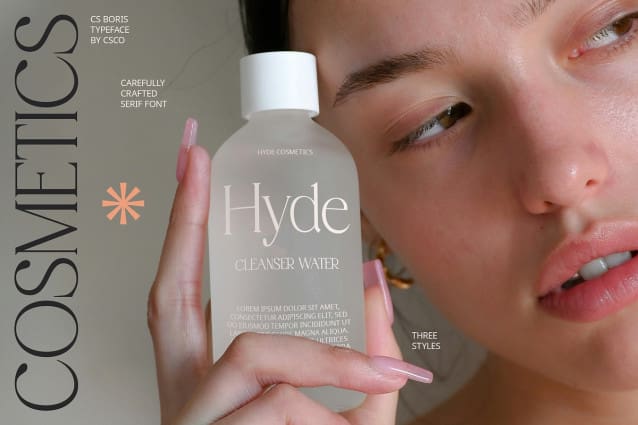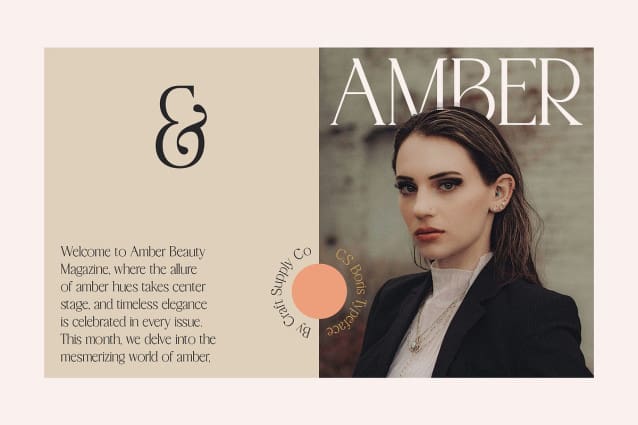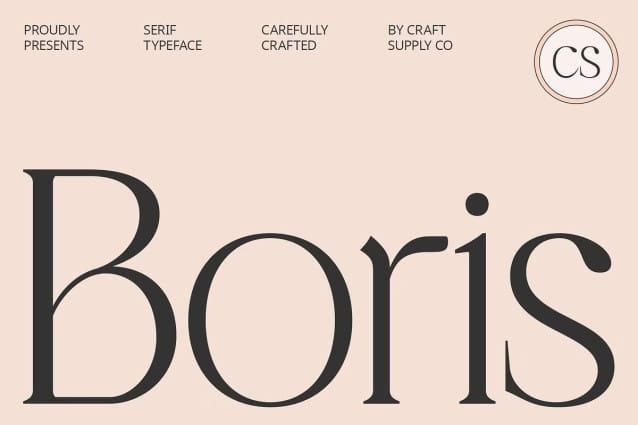
CS Boris Font
CS Boris Font is a modern serif font that epitomizes refined elegance and beauty. With its sophisticated design, this font elevates any project with a touch of class and grace.
Ideal for luxurious magazine layouts, high-end branding, and elegant editorial projects, CS Boris combines traditional serif elements with a contemporary aesthetic. Its clean lines and well-crafted letterforms ensure a visually appealing and polished look.
Whether you’re designing upscale branding materials, stylish magazine spreads, or sophisticated editorial content, CS Boris provides the perfect blend of elegance and modernity. Its versatile style adds a touch of distinction to any high-end project.
Choose CS Boris to infuse your designs with a modern yet classic elegance. This font delivers a refined and beautiful appearance, making it the ideal choice for projects that require a sophisticated and luxurious touch.